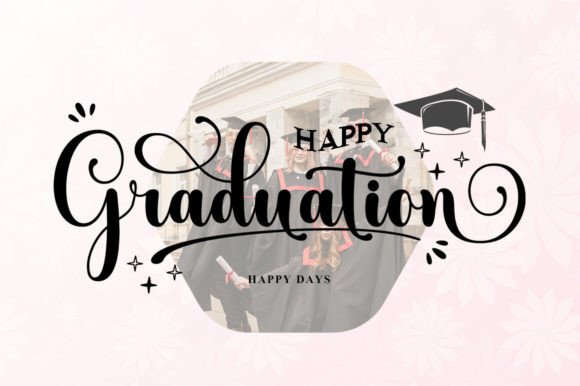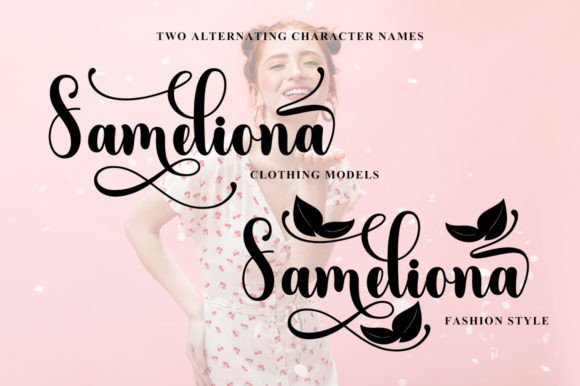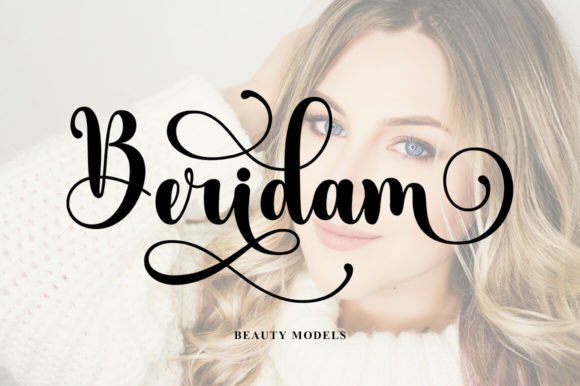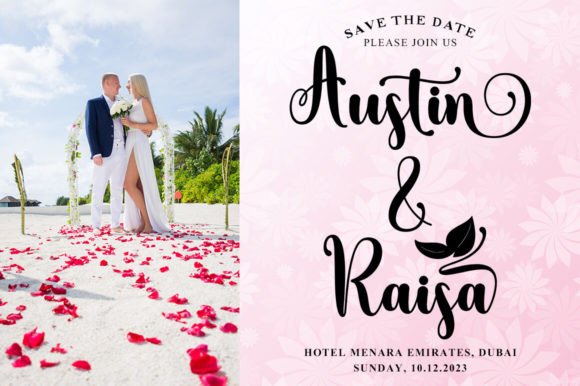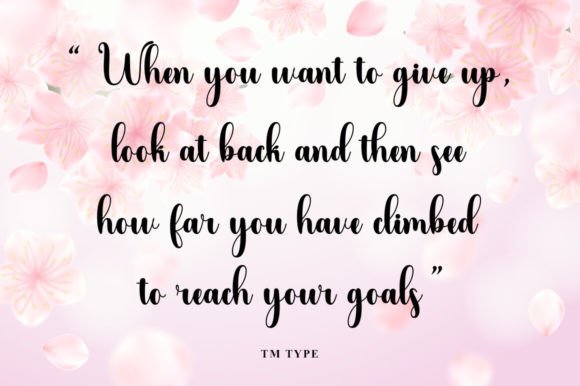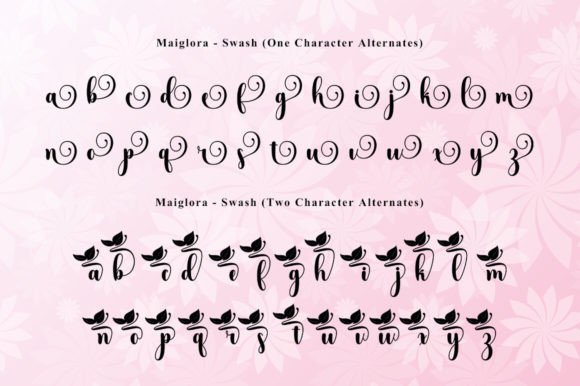
Introduction to Maiglora Font
Maiglora is a sweet and friendly handwritten font.
Fresh and neat, this font is ideal for writing wedding invitations, cards, or any other design that might need a fun touch PUA encoded which means you can access all of the glyphs and swashes with ease.
Key Features of Maiglora Font